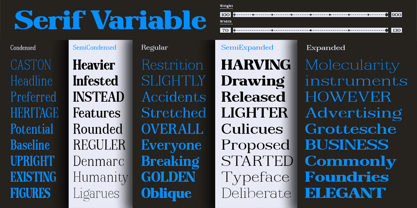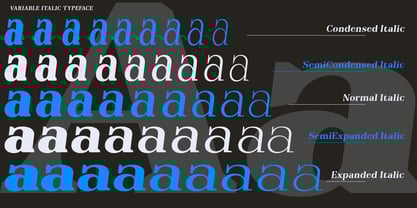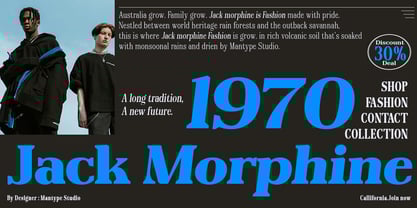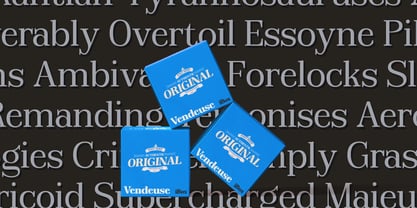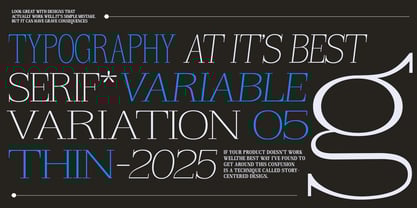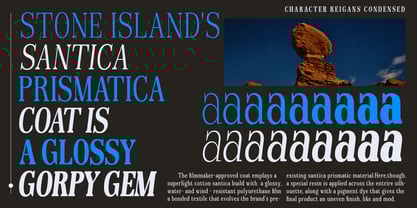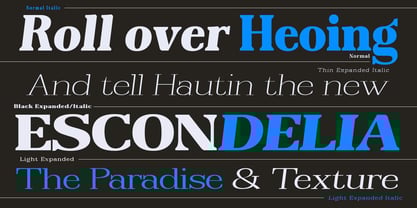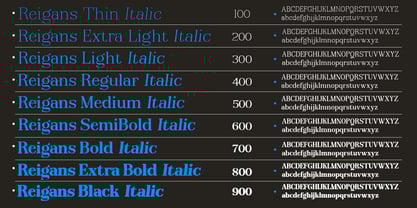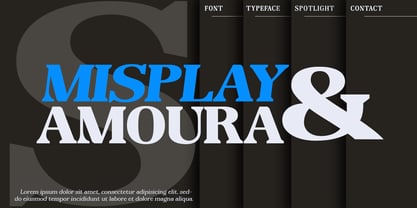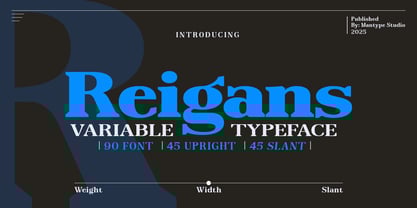
Reigans
by Mantype Studio
The Reigans Font Family was designed by Sulai Man and published by Mantype Studio. Reigans contains 91 styles and family package options.
Reigans is a modern serif typeface designed with versatility in mind. This variable font includes a robust set of 90 fonts — 45 upright and 45 slanted styles — offering extensive flexibility in typography. Its design balances classic serif structure with contemporary flair, making it ideal for editorial design, branding, headlines, and digital content.
• Styles: 90 total (45 upright, 45 slant)
• Features: Fully variable across weight, width, and slant axes
• Best for: Branding, magazines, packaging, websites, and display uses
Reigans empowers designers to fine-tune typographic expression with elegance and control.